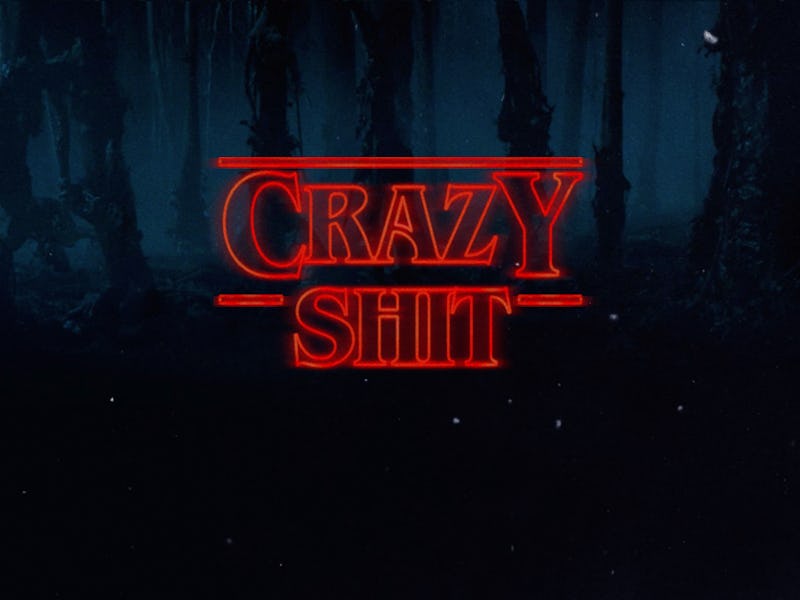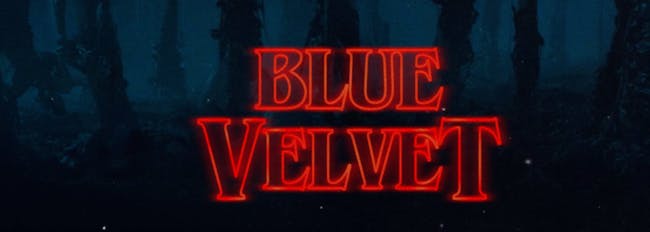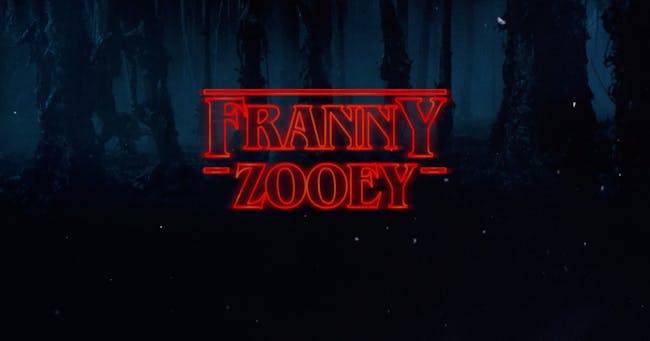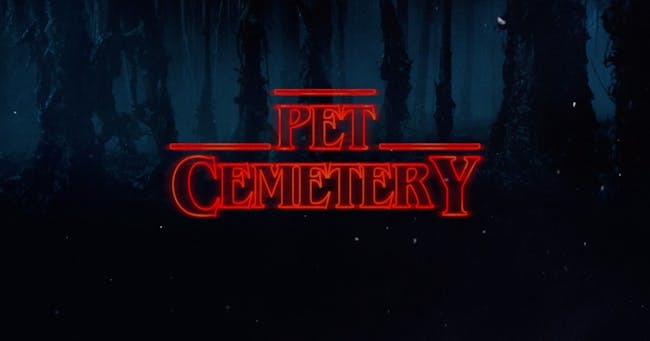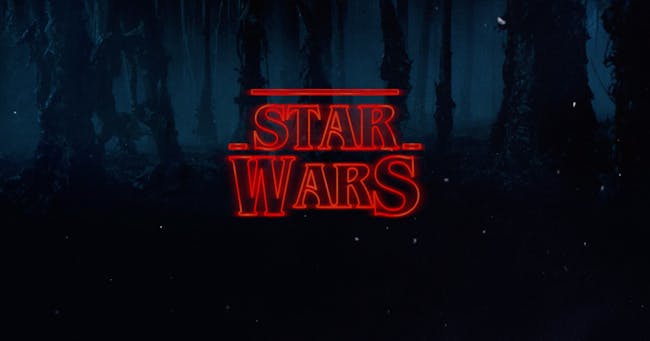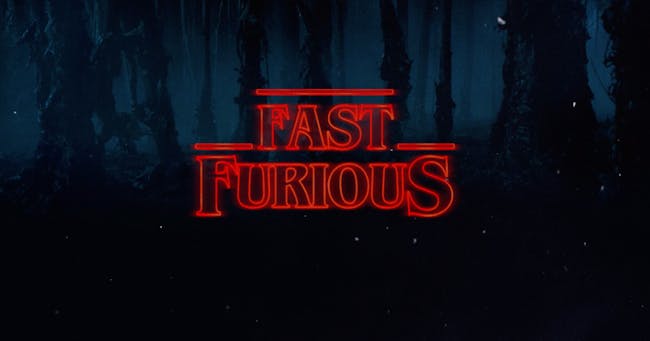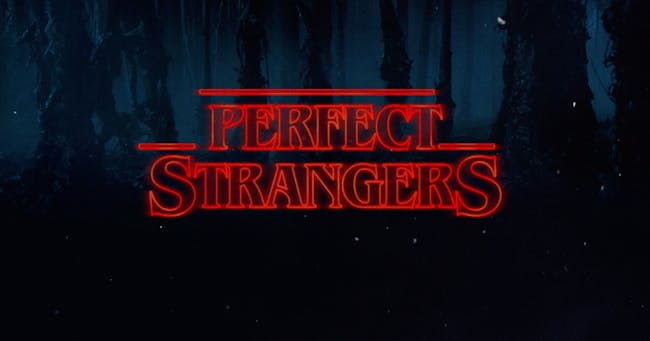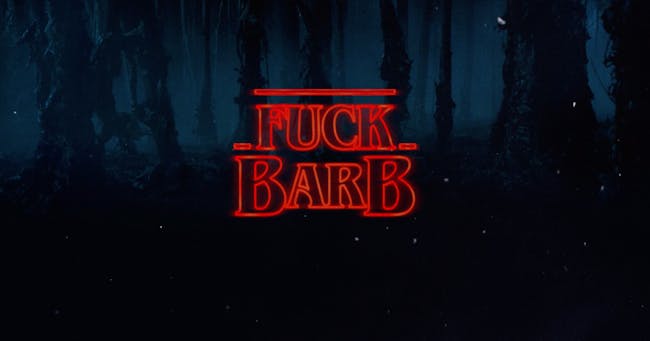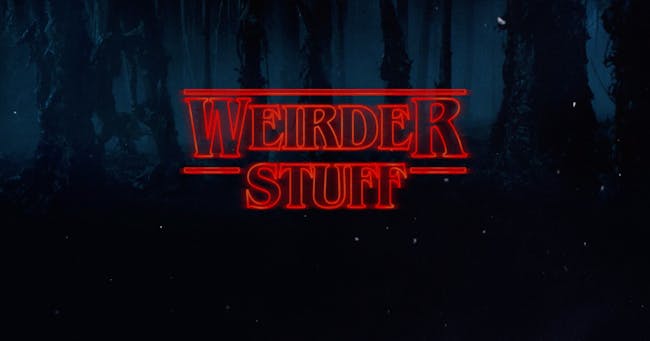
'Stranger Things' Font Generator Lets You Create 'Crazy Shit'
Nostalgia is undoubtedly the unstoppable power behind the enthusiasm for Netflix’s Stranger Things – and we all know that iconic ITC Benguiat font has more than a little to do with it. Just the shape of those letters makes our hairs stand on end, sending the mind thinking about creepy Stephen King/David Lynch/X-Files chimeras haunting our nightmares. And now, you too can give totally innocuous words the Stranger Things treatment with this nifty font-generator.
You can “strangify” any two words you want, but what should you choose? Something that honors the creeptastic texture of Stranger Things? Or perhaps a Stephen King or David Lynch creation to honor the origin of ITC Benguiat to begin with? It turns out, the possibilities are endless, but we do have some suggestions. And be warned: once you start playing with the Stranger Things font-generator, you will literally be sucked into a time-loop for at least two hours. With that in mind, we’ve created some of the obvious ones for you right away. Here’s a brief journey into the world of Stranger Things font games, or as we like to call it: Crazy Shit.
An homage to Stranger Things itself.
We hear this, was in fact, the working title before they settled on Stranger Things. Maybe if it had been on HBO, it could have had its real,edgier title.
We came up with this cool idea called Star Wars…
Ah damn…this looks way better than the real Doctor Who title card!
Remember when Cousin Balki went missing?
Alternate universe Stranger Things written by a 14 year old.
It’s all about family…
You know Salinger would have loved it.
Lynch-reloaded.
Bringing it all back home to the Stephen King-roots….
Some editorial thoughts about the show…